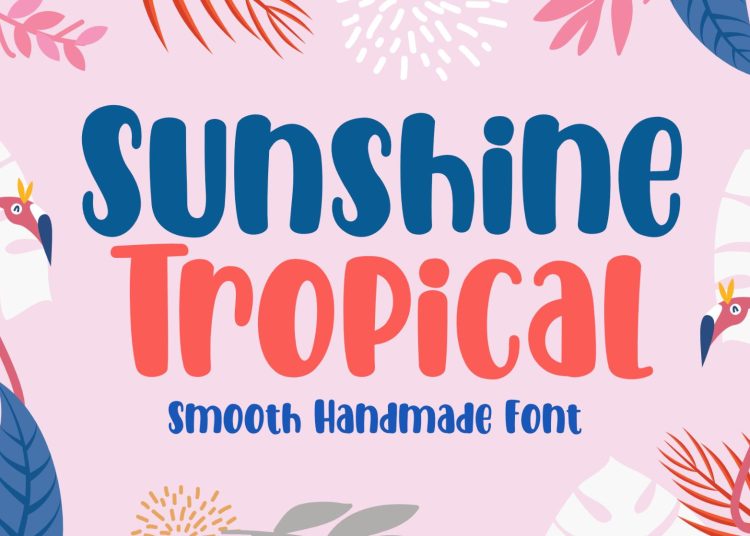
Sunshine Tropical Font
Sunshine Tropical is a bold and smooth handwritten font designed to be both charming and versatile. Carefully handcrafted, this font combines casual charm with readability, making it an excellent choice for a variety of design projects.
Key Features of Sunshine Tropical:
• Bold and Smooth: With its bold strokes and smooth curves, Sunshine Tropical stands out in any context, providing a confident and approachable look.
• Casual Charm: The font’s casual and friendly style makes it perfect for adding a down-to-earth touch to your designs. It’s incredibly versatile, working well on both busy backgrounds and as a standalone headline.
• Readability: Despite its decorative style, Sunshine Tropical maintains excellent readability, making it suitable for headlines, logos, and other prominent text elements.
• Handcrafted Quality: Each letter is meticulously handcrafted, ensuring that the font retains a personal and unique touch.
Ideal Uses for Sunshine Tropical:
• Headlines and Titles: Perfect for making a statement in headlines and titles, whether on posters, websites, or promotional materials.
• Logos and Branding: Add a touch of personality to your brand with this distinctive handwritten font.
• Greeting Cards and Invitations: The casual charm of Sunshine Tropical makes it an excellent choice for personal invitations and greeting cards.